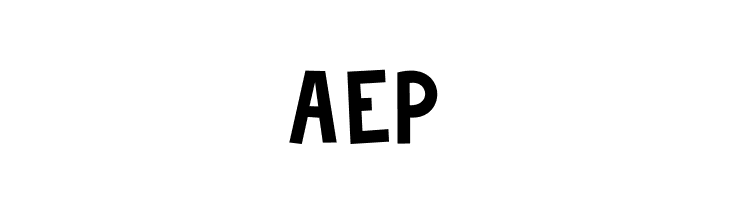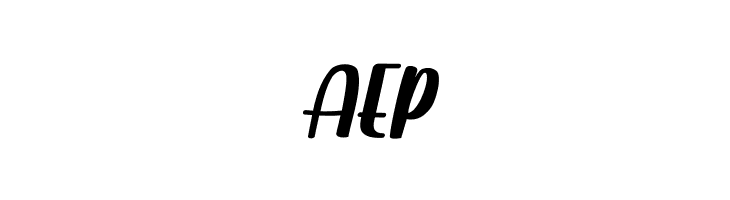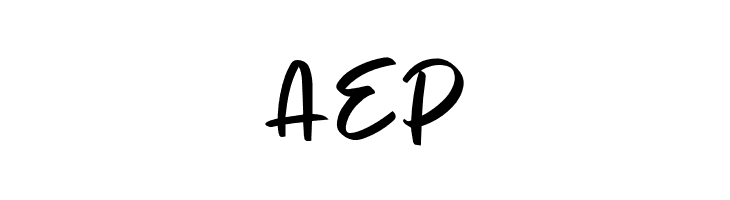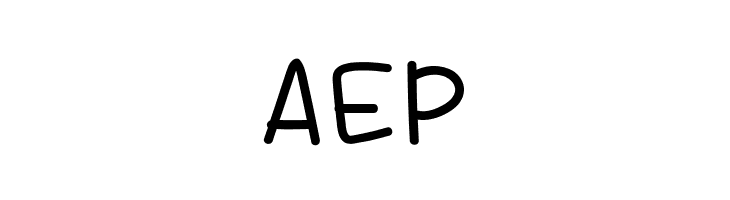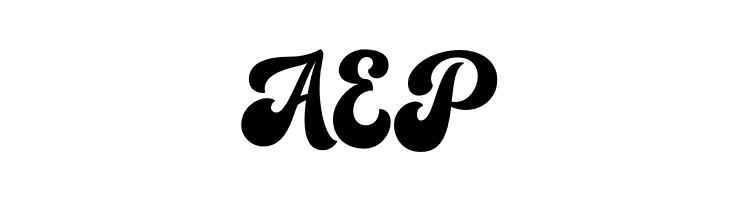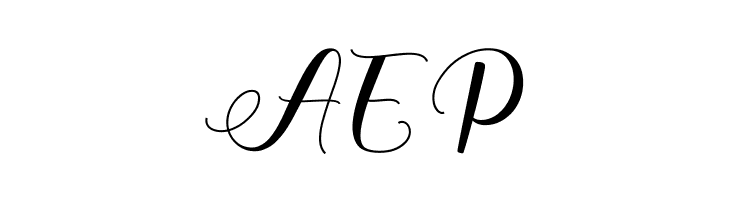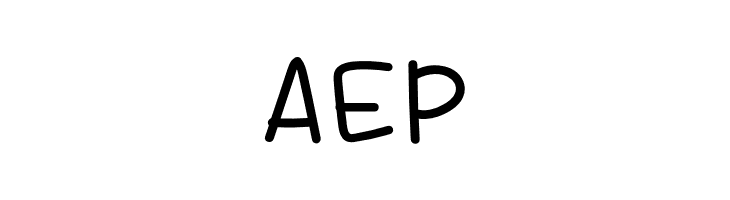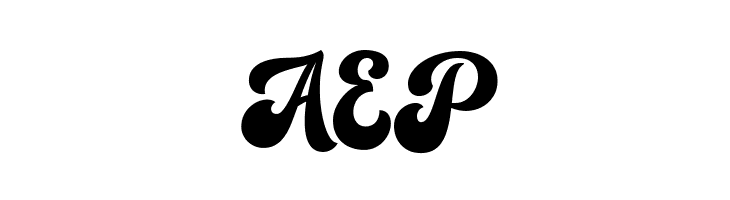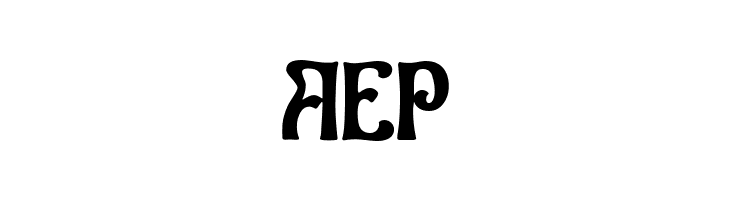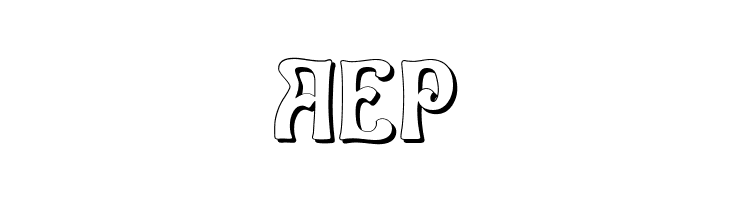
A bold, italic script font with dynamic strokes and close spacing.
A bold, italic script font with high contrast and dynamic style.
A dynamic, edgy font with sharp, jagged edges and a hand-drawn style.
A bold, brush-style font with an energetic, hand-painted look.
A bold, dynamic brush script font with expressive strokes.
A futuristic, angular font with sharp edges and geometric forms.
A playful, handwritten font with smooth, flowing strokes and a casual vibe.
A playful, casual handwritten font with dynamic strokes and a friendly appearance.
A playful, bold font with a whimsical, hand-drawn style.
A bold, modern sans-serif font with geometric influences and excellent readability.
A sleek, geometric sans-serif font with a modern and minimalist design.
A playful, casual handwritten font with smooth, rounded edges.
A playful, bold font with rounded, thick strokes and a whimsical touch.
A playful, bold handwritten font with rounded, smooth letterforms.
A bold, outlined font with a hand-drawn, sketch-like style.
A bold, distressed font with a rugged, hand-crafted look.
A bold, stencil-style font with geometric shapes and clear cutouts.
A bold, handwritten font with dynamic strokes and a lively style.
A bold, distressed font with a grunge aesthetic and textured edges.
A modern, geometric sans-serif font with rounded edges and balanced spacing.
A bold, rounded sans-serif font with a modern and approachable style.
A bold, playful script font with rounded strokes and smooth curves.
A bold, playful script font with flowing, connected letters and decorative uppercase characters.
A pixelated, geometric font inspired by retro digital displays.
A dynamic and elegant script font with fluid letterforms and varying stroke widths.
A bold, decorative font with a medieval-inspired aesthetic.
A bold, shadowed font with decorative flair and three-dimensional appearance.
An elegant script font with flowing cursive style and intricate swashes.
A playful, handwritten font with bold, rounded characters.
A playful, handwritten font with smooth curves and a casual style.
A playful, handwritten font with a casual and friendly appearance.
A playful, handwritten font with rounded edges and a casual style.